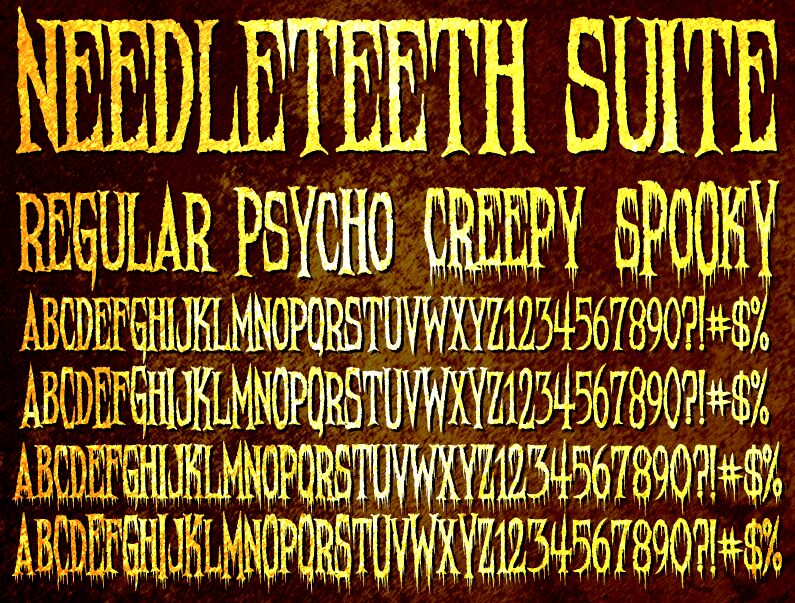
Needleteeth by Chad Savage is a free scary display font with towering needle-thin letters and a harsh, torn silhouette. The uneven strokes flare into barbs and splinters along their edges, with abrupt changes in width throughout.
A haunted attraction or horror production could use it to establish an abrasive, threatening identity before any imagery appears. Its stretched proportions and ragged texture also suit extreme-metal merchandise, Halloween event posters, and covers for dark fiction. The recurring spikes can echo thorns, claws, or shattered wood in accompanying artwork, making the lettering part of the scene rather than a neutral caption.
The Needleteeth Font Suite was created by Chad Savage in 2011 and hand-lettered on Halloween night.
The Needleteeth Psycho and Needleteeth Spooky variants use alternating sizes for uppercase and lowercase letters, which can be mixed.
Needleteeth Regular